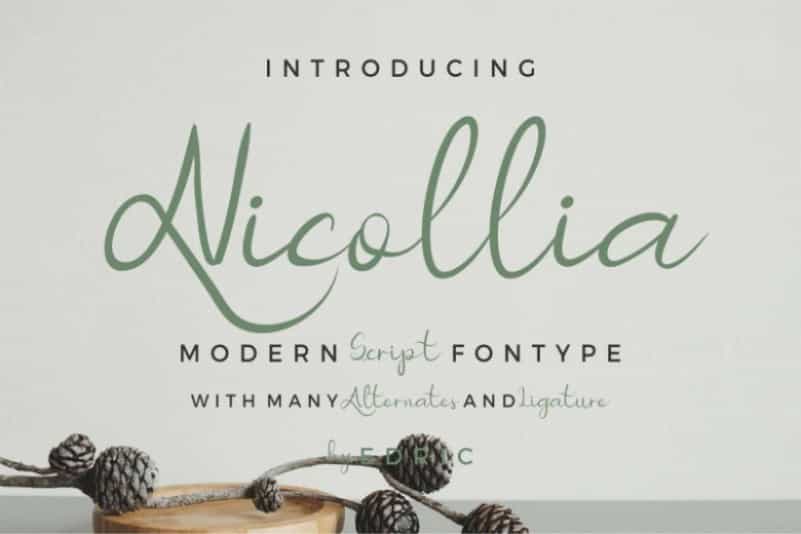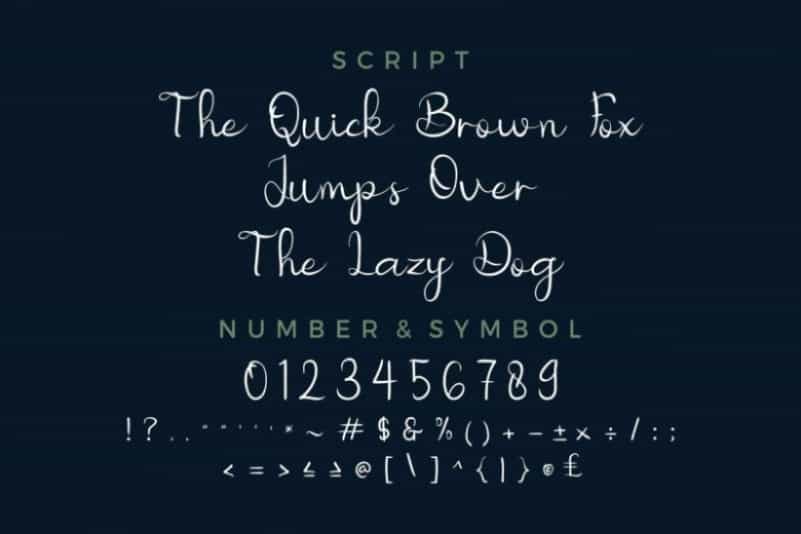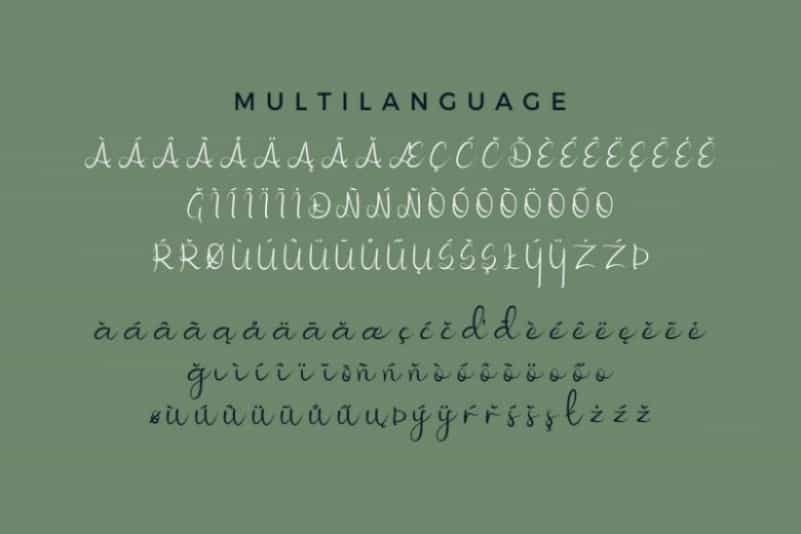
Introducing our newest font : Nicollia Script Font! It is a completely modern script feminin calligraphy style font. It has a new and sophisticated glyph. You will get : OTF, TTF, WOFF.